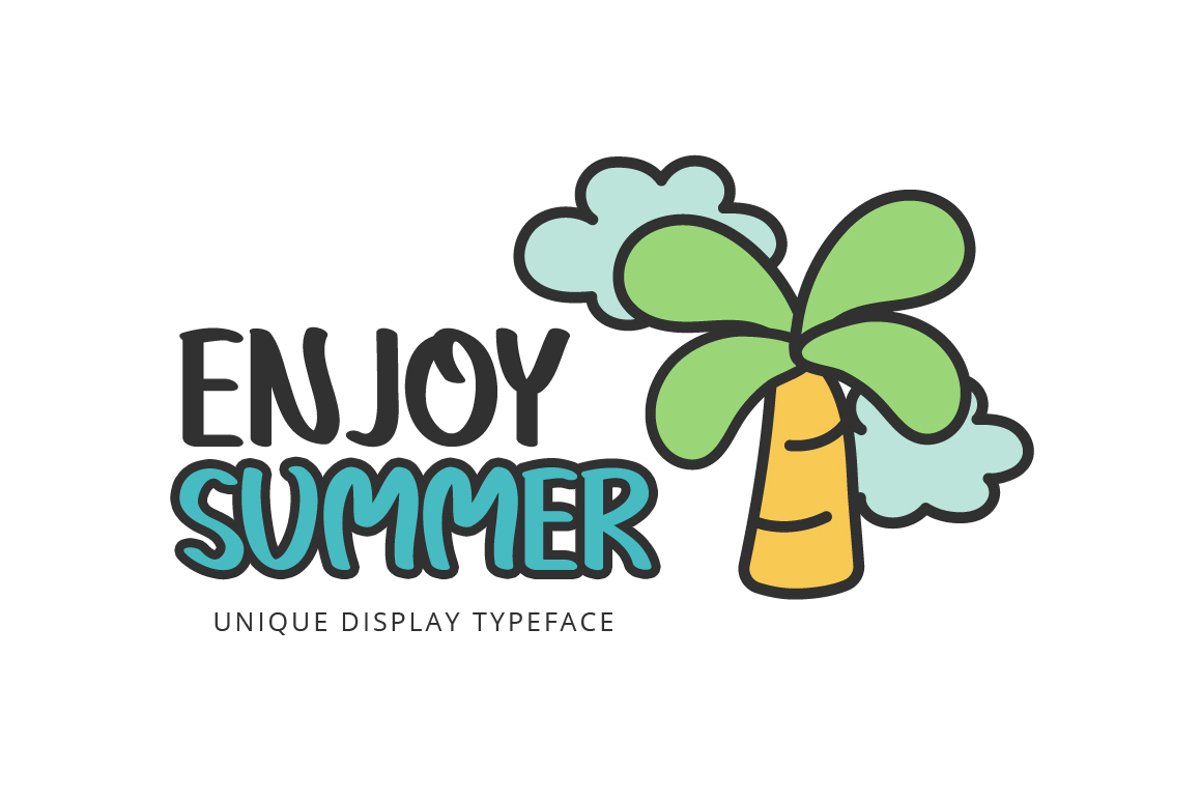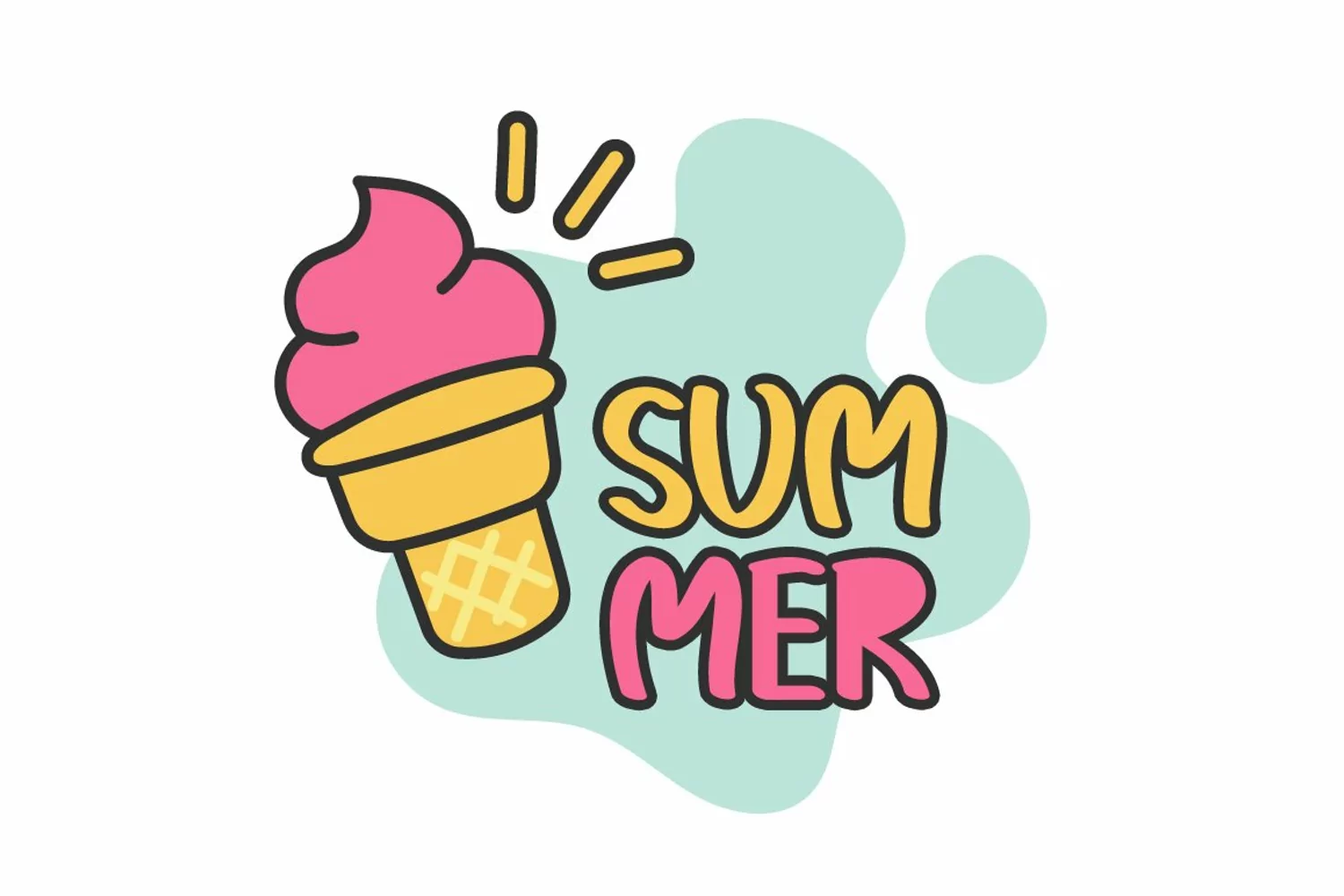
Introducing Enjoy Summer!
Enjoy Summer is a brand new display font. Enjoy Summer is perfectly suited for stationery, logos, t-shirt, paper, print design, website header, photo frame, flyer, music cover, poster, image slider, and much more.